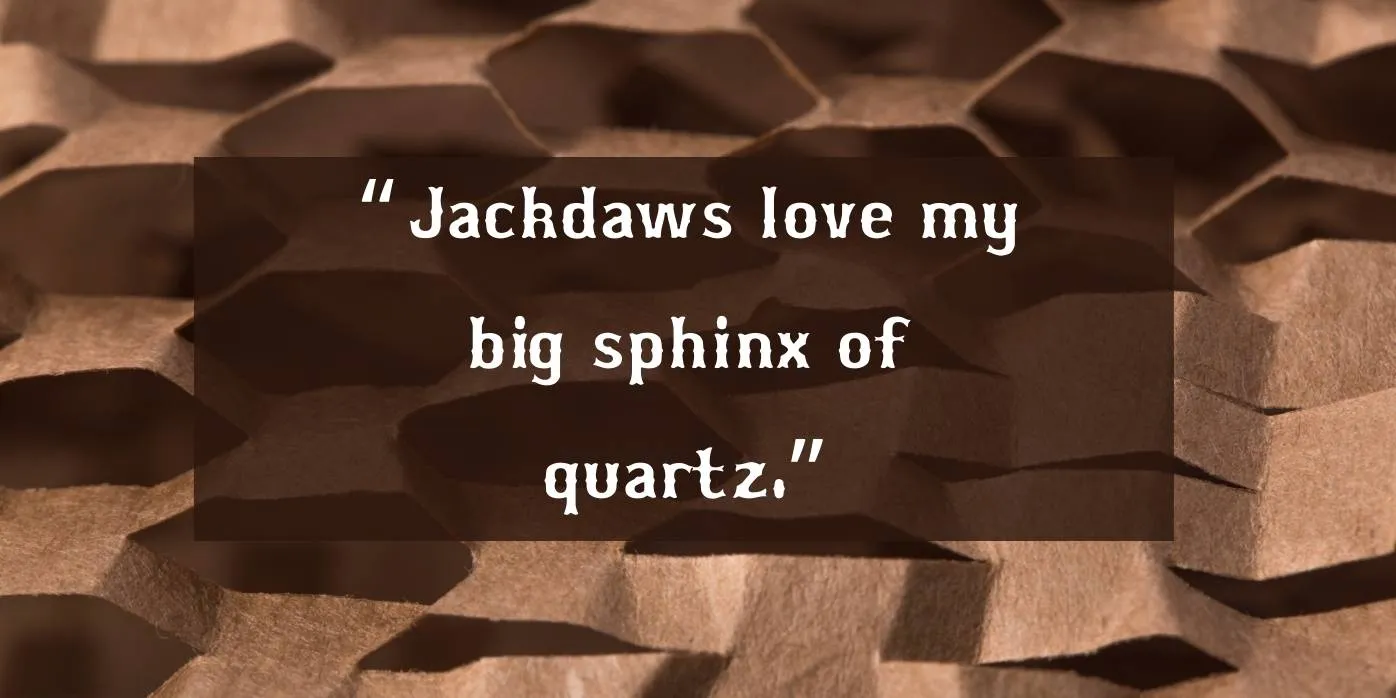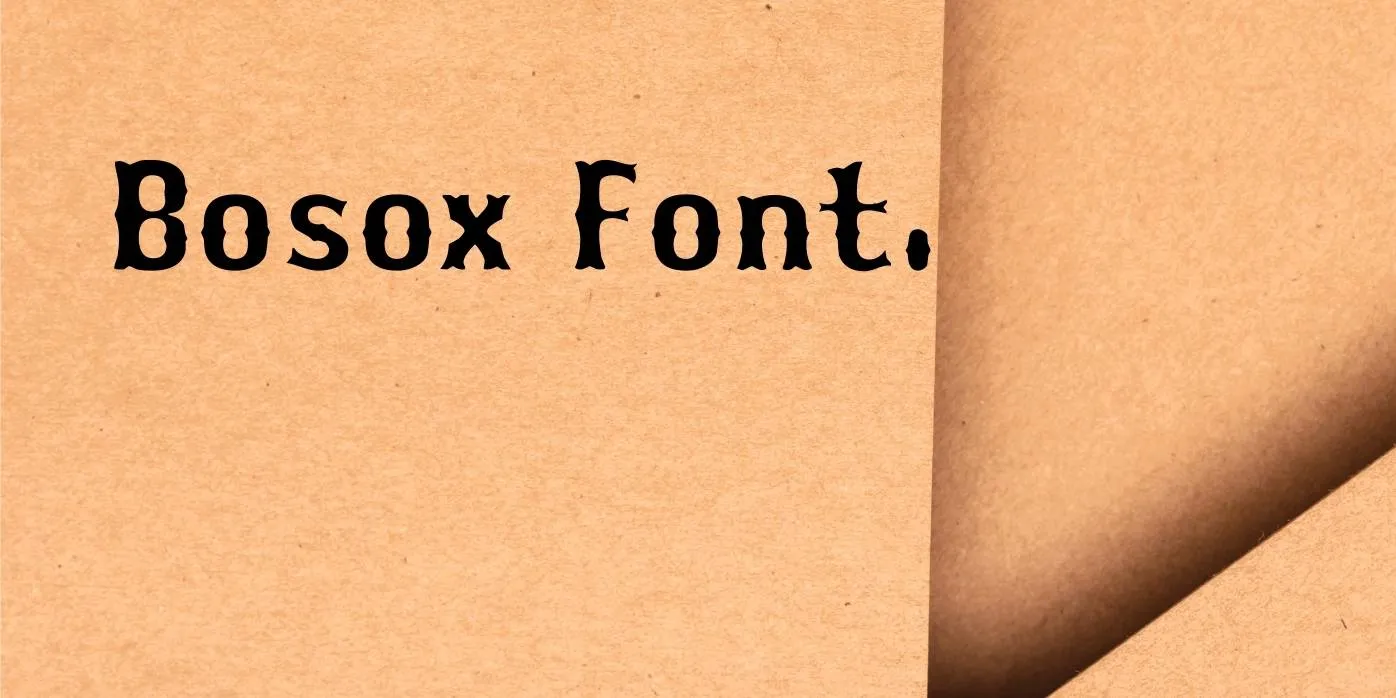
Bosox Font
Bosox Font was developed by a famous designer named Lee Gordon. This typeface belongs to the Fancy typeface. This attractive font was first developed in 2009. This font is currently available for free download on the Internet.
This marvelous typeface package comes with three weights such Regular, Bold, and Black. You can use its alternative font that is Pilar typeface Font. This classy font family includes two typefaces and many styles. This font family is available in unique weights.